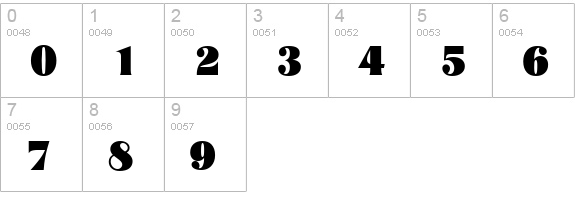
NashvilleSerial-Heavy-Regular is a heavy, high-impact variant in the NashvilleSerial typeface family \xE2\x80\x94 well suited to high-impact headlines, posters, and display advertising.
NashvilleSerial-Heavy-Regular font is a bold and striking typeface that exudes confidence and strength. With its clean lines and modern aesthetic, this font is perfect for making a statement in any design project. Whether you're creating posters, logos, or social media graphics, NashvilleSerial-Heavy-Regular font will help your text stand out and grab attention. The best part? NashvilleSerial-Heavy-Regular font is completely free to download at FontsMarket.com. This means you can access this high-quality font at no cost, making it a valuable addition to your font library. Don't miss out on the opportunity to elevate your designs with the powerful and impactful NashvilleSerial-Heavy-Regular font - download it for free today at FontsMarket.com!